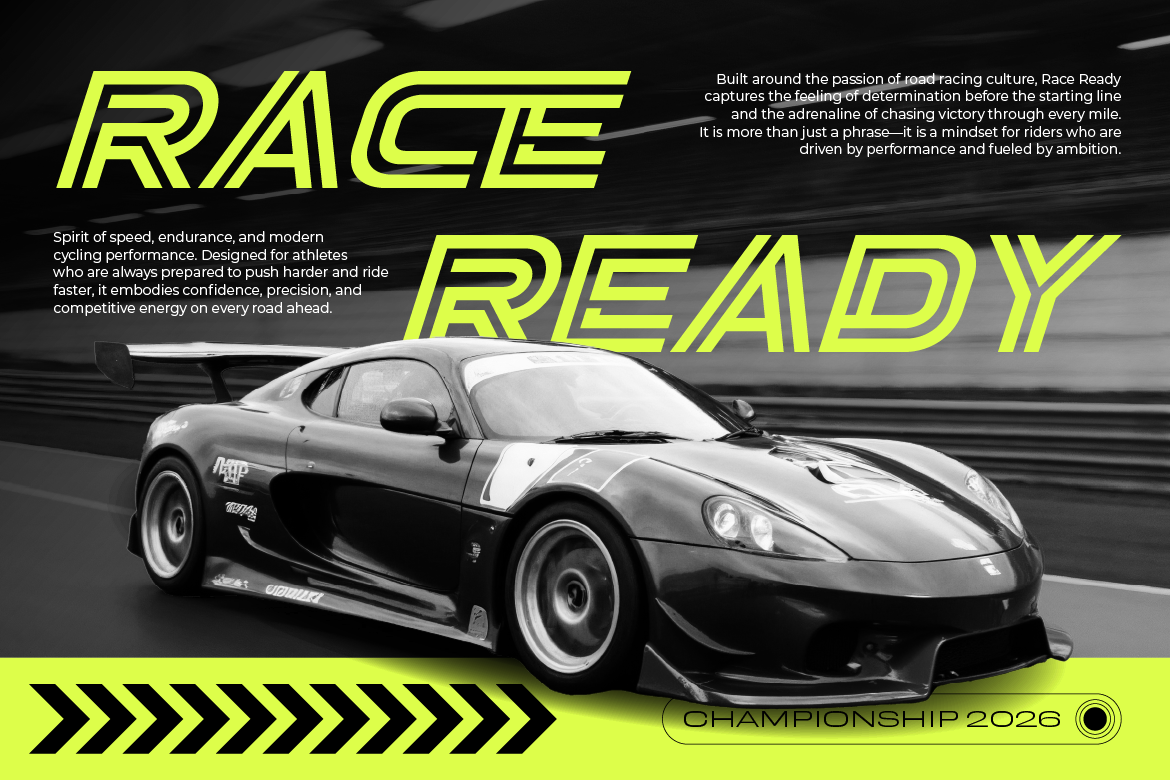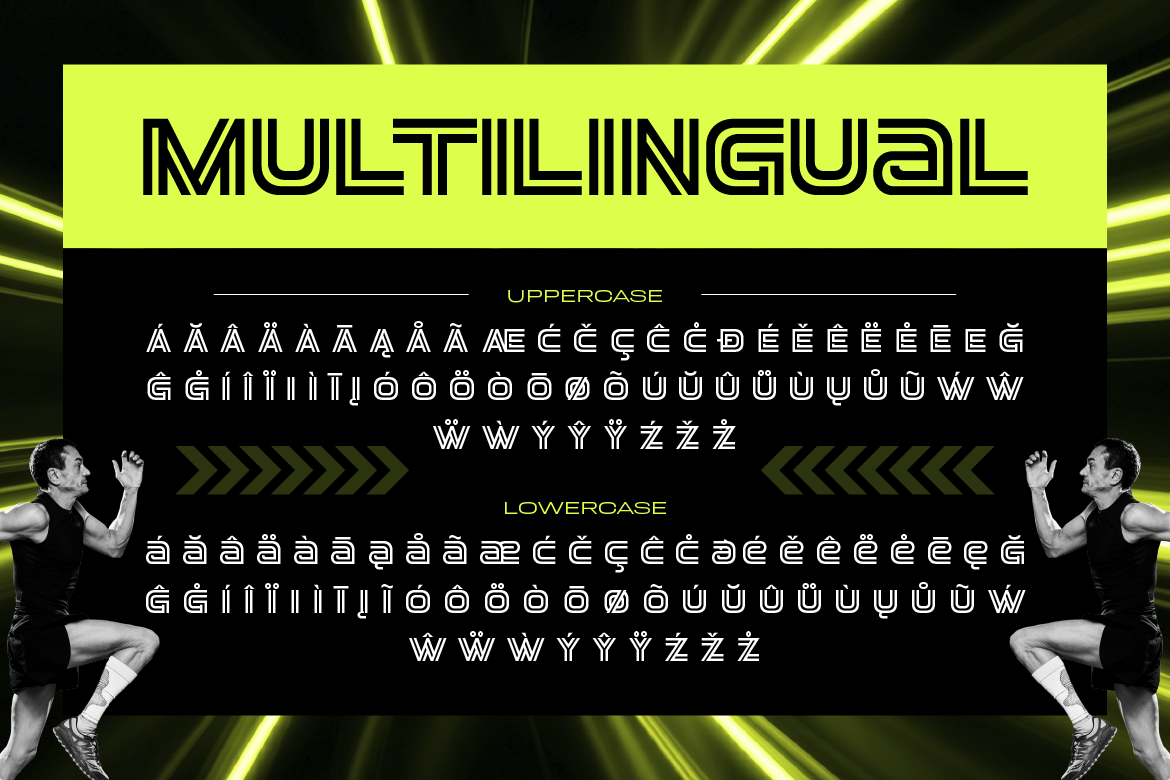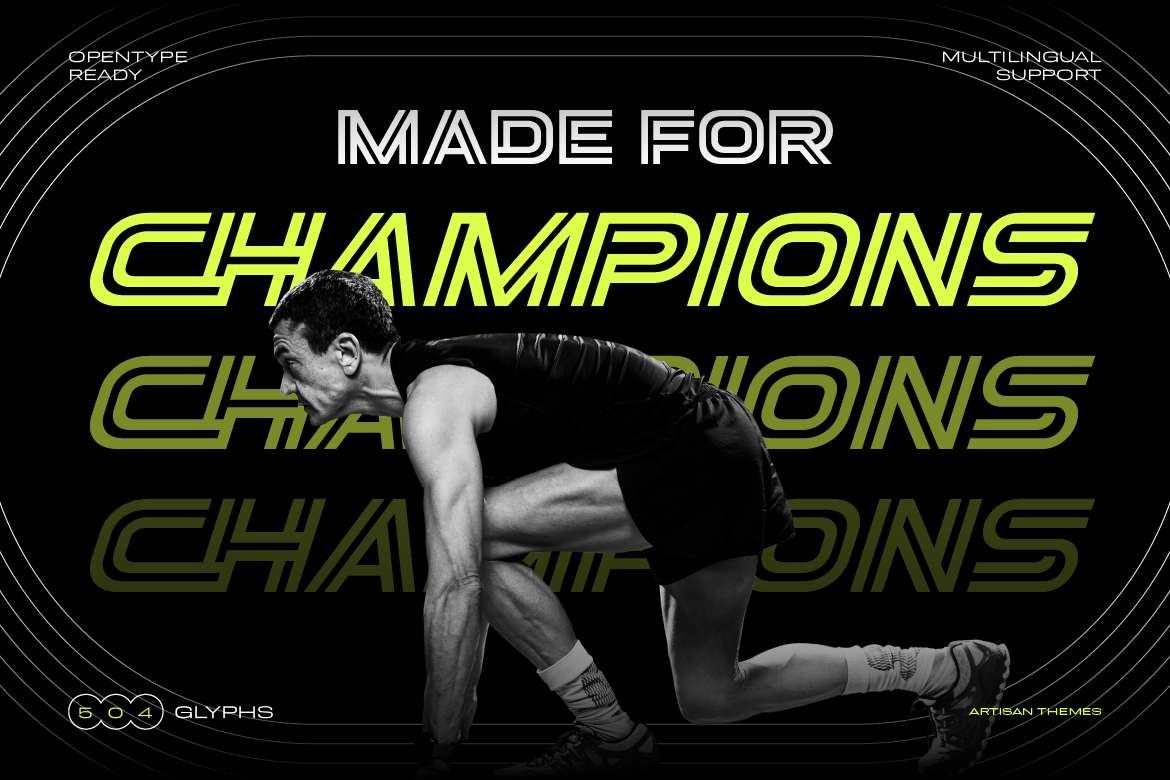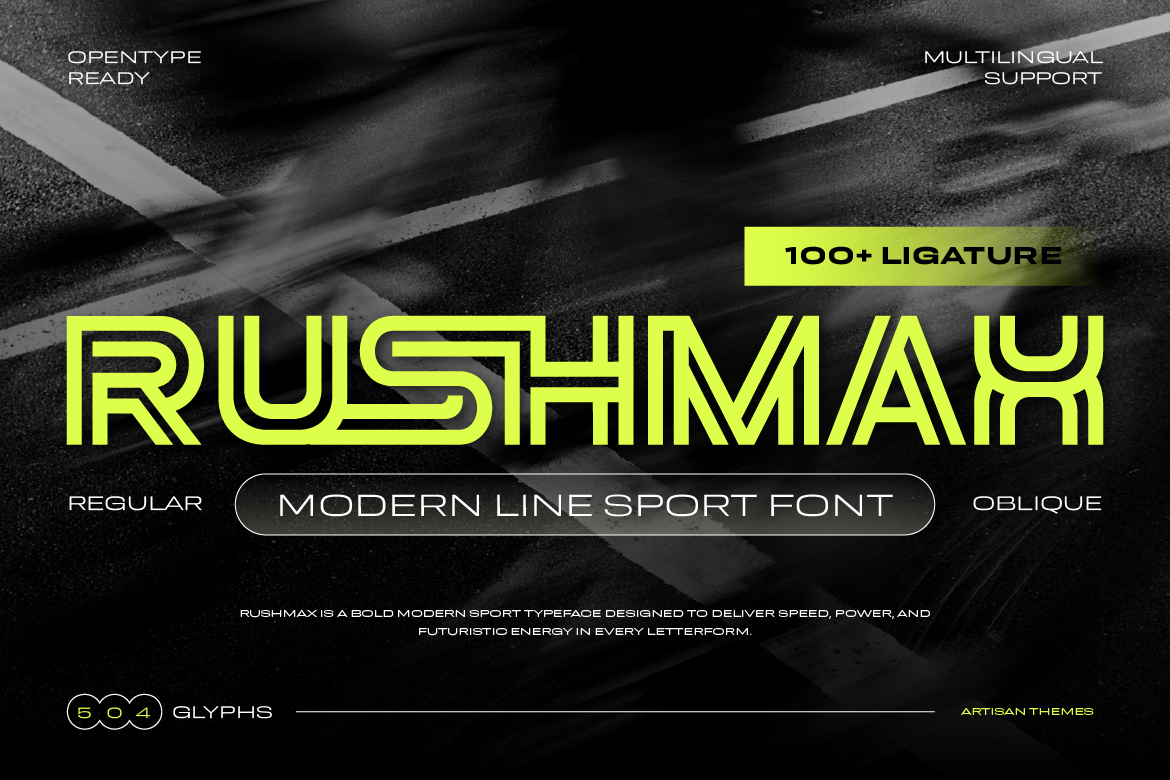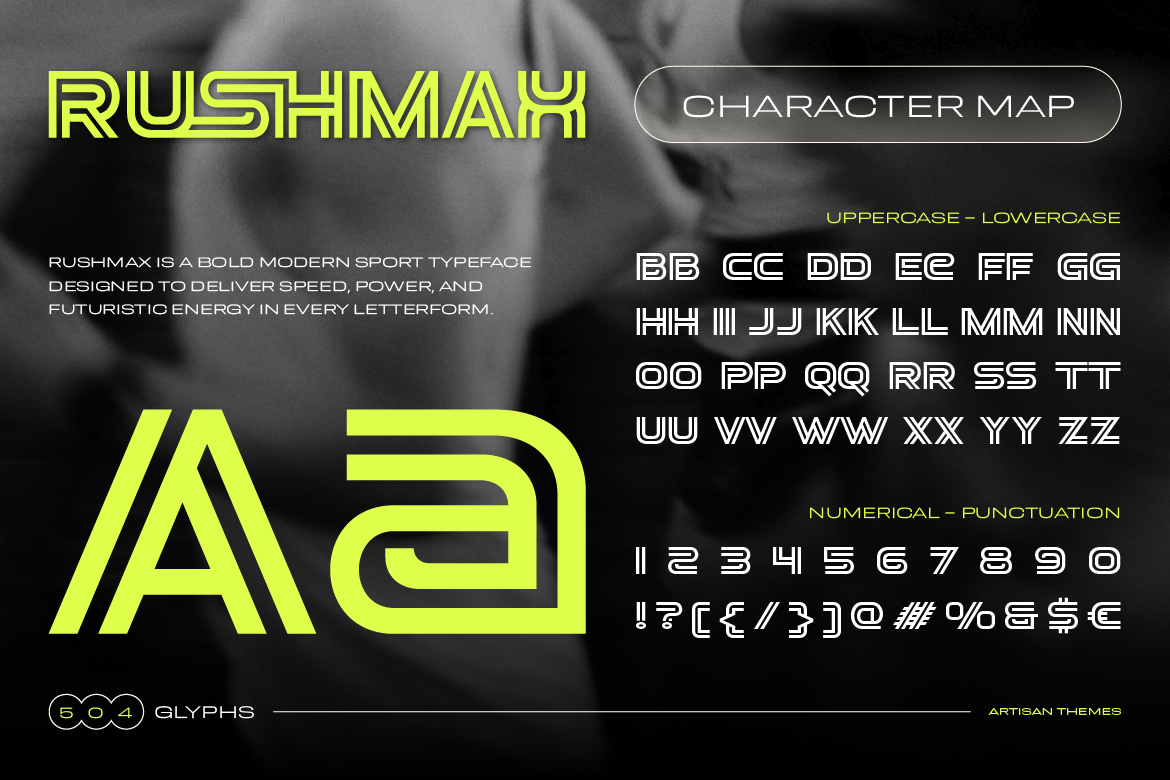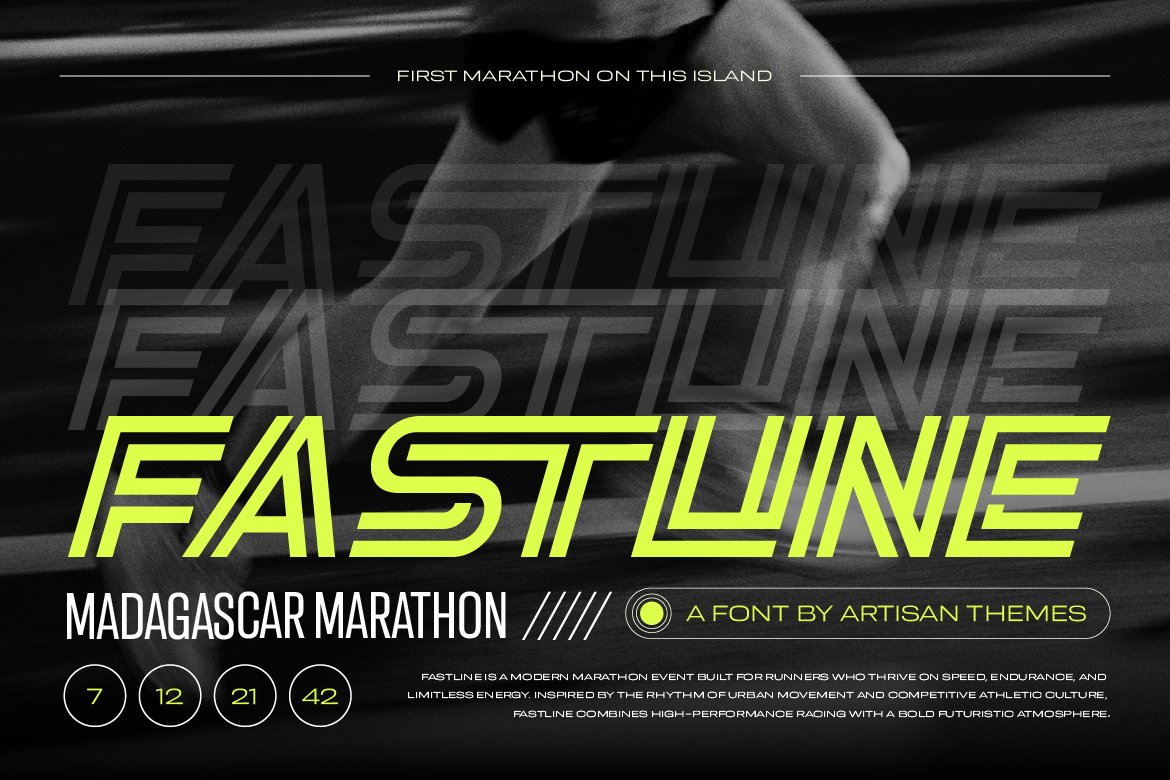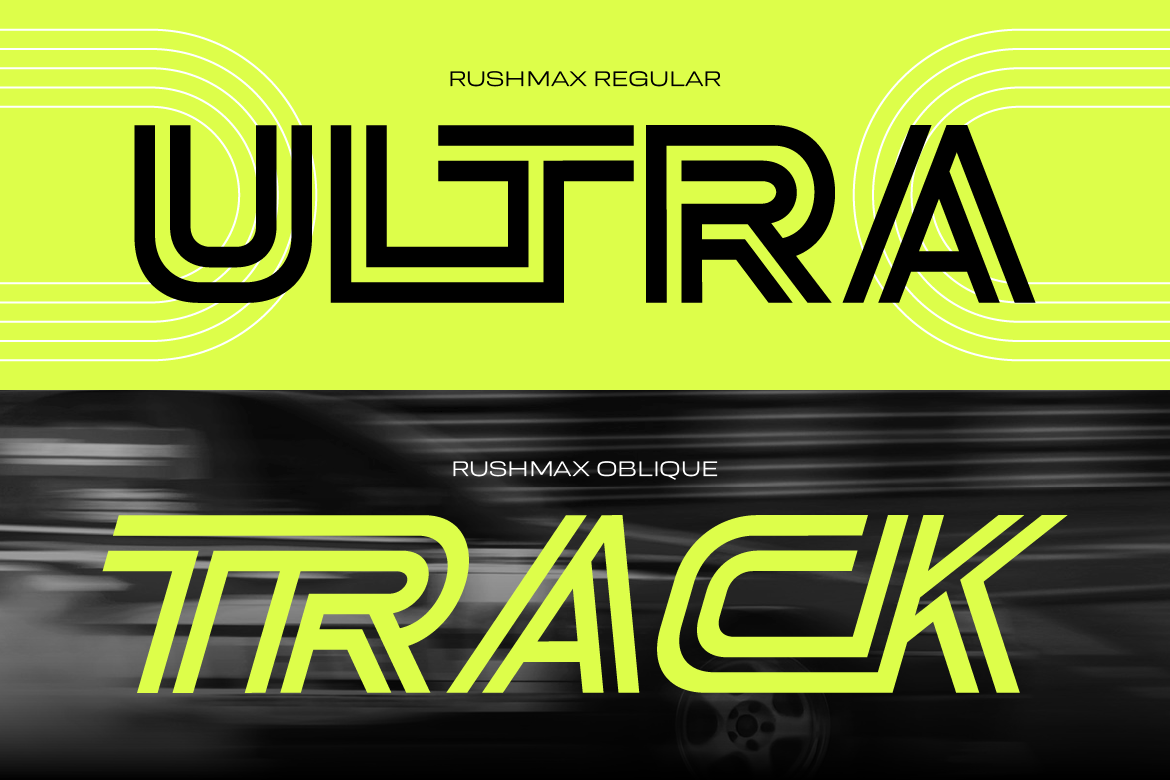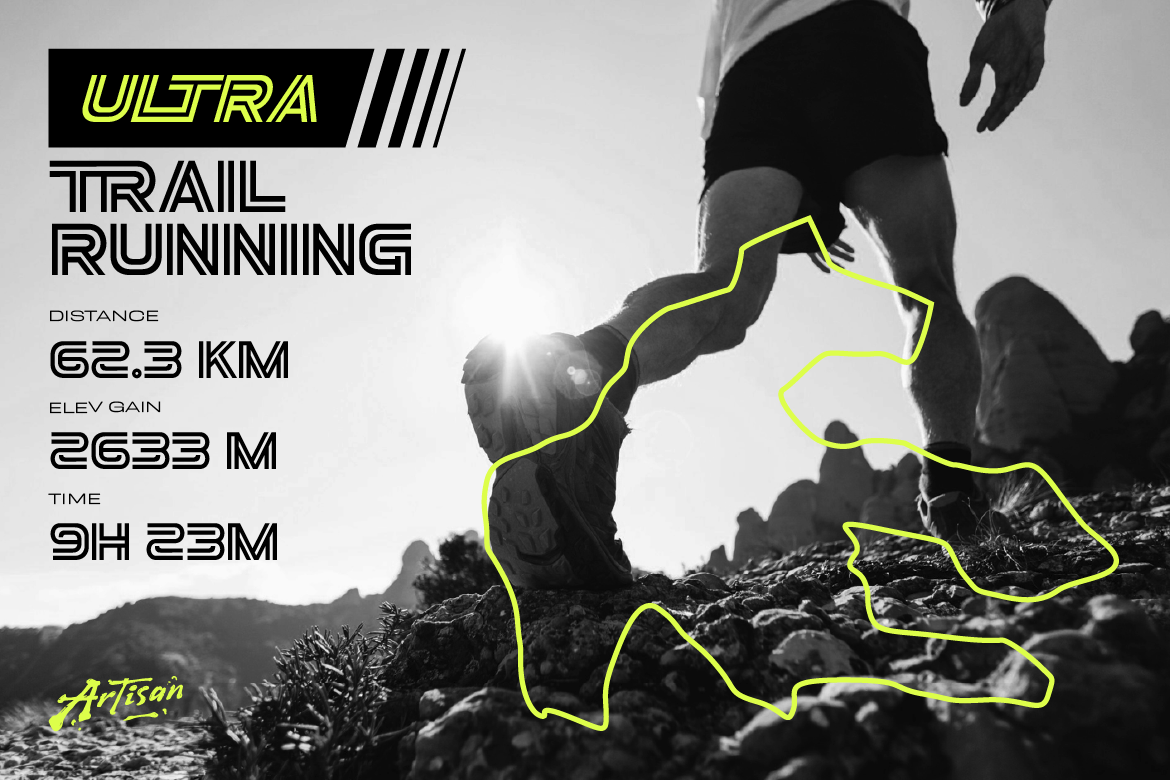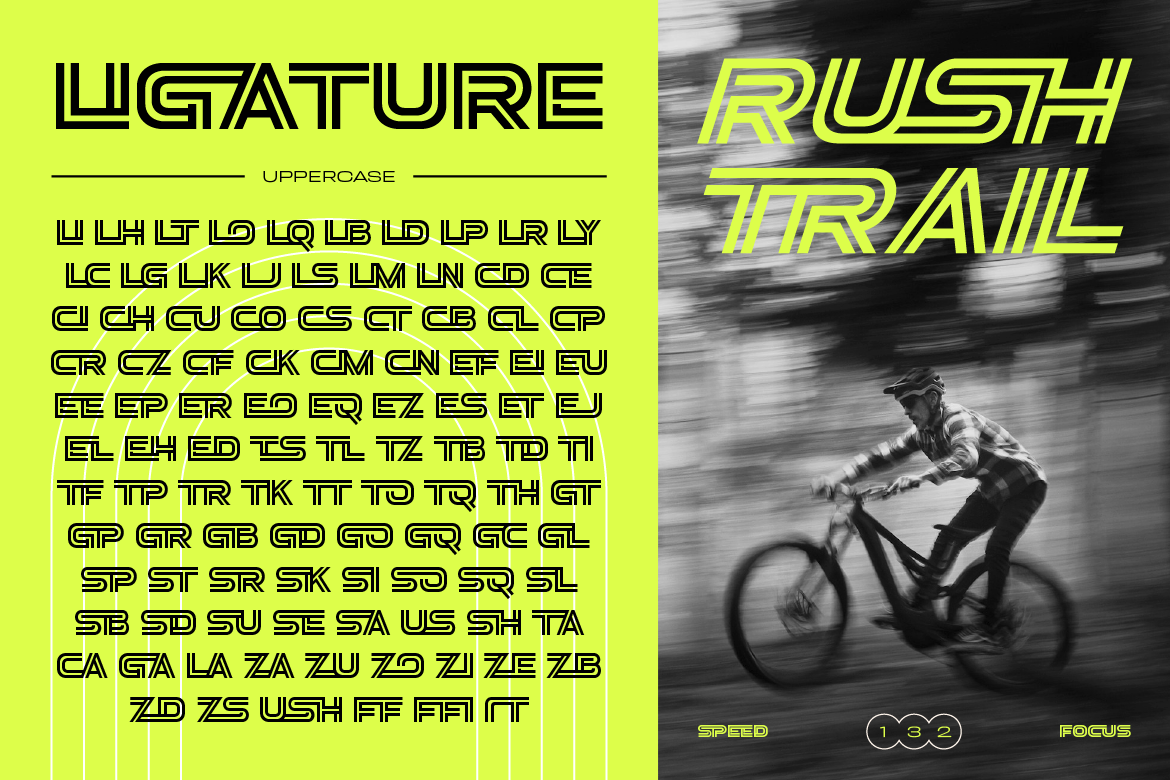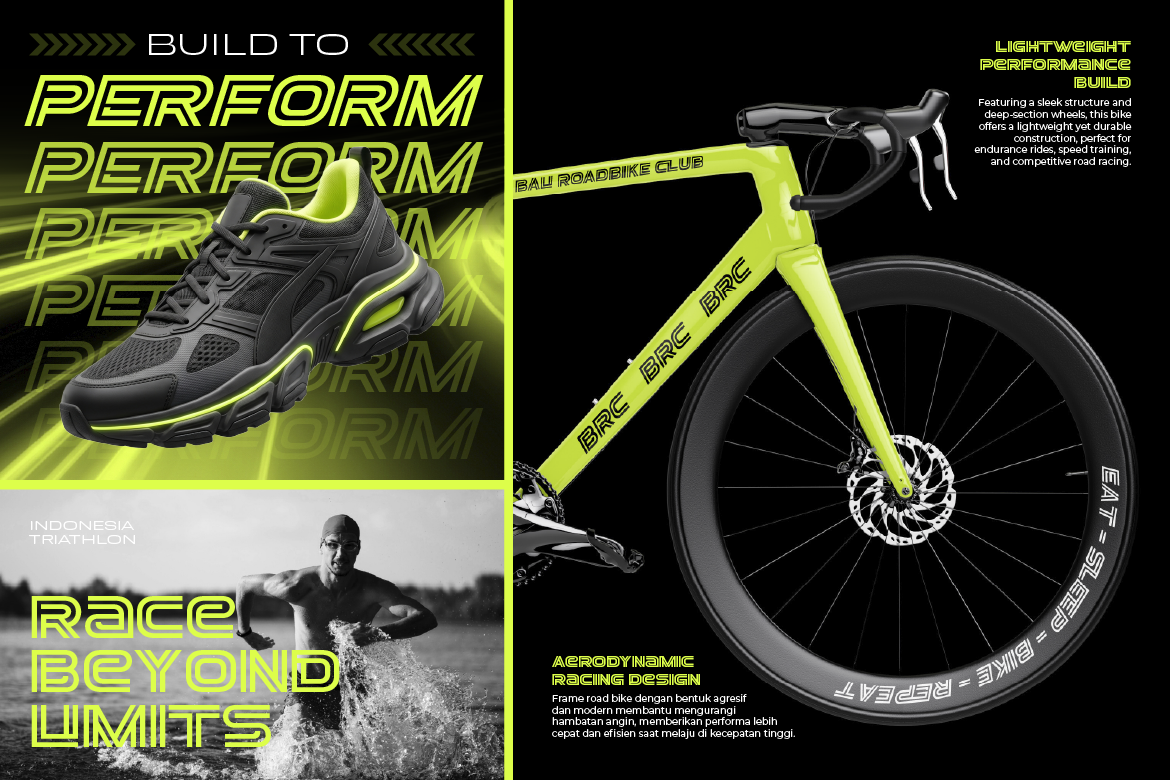
Modern line sport font
Rushmax
Regular
Oblique
Description
Rushmax is a bold modern sport font built to capture speed, power, and futuristic energy in every letter. Designed with sharp lines, dynamic curves, and a high-performance aesthetic, this typeface is perfect for projects that demand a strong and aggressive visual impact.
Inspired by athletic performance, Rushmax delivers a sleek and cutting-edge look that feels fast, confident, and unstoppable.
Whether you’re creating branding for sportswear, racing events, fitness campaigns, or futuristic tech visuals, this font brings a high-speed attitude to your design.
Perfect for:
• Sports branding & athletic wear
• Racing, automotive & motorsport designs
• Esports & gaming visuals
• Posters, headlines & bold typography
• Fitness & gym promotions
• Tech, sci-fi & futuristic themes
• A – Z set (Uppercase & Lowercase All Caps)
• Number
• Punctuation
• Alternates
• Multilingual